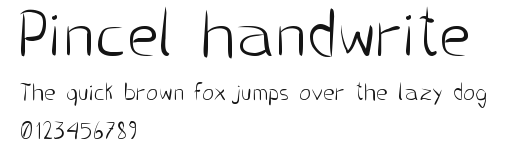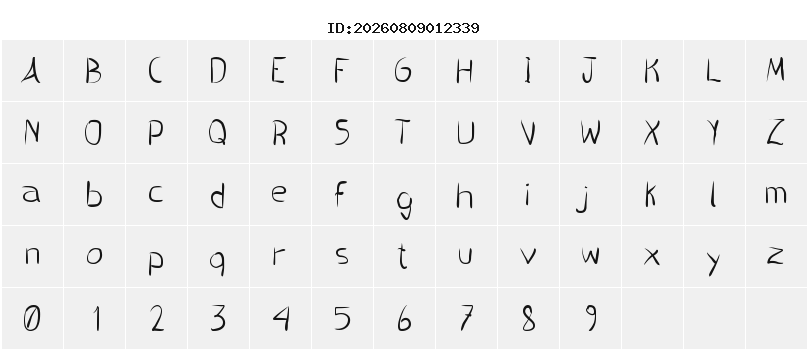
• Font Name: Pincel handwrite
• Designer: kaiserzharkhan
About Pincel handwrite.ttf
Pincel handwrite.ttf is a modern, elegant sans-serif font designed for ultimate readability and visual harmony. Perfect for branding, headlines, web design, and print materials.